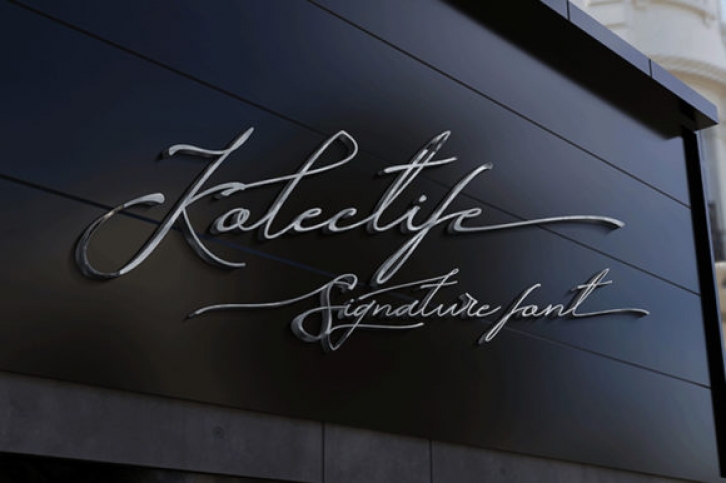
Kolectife Signature is a dazzling script font. This font is neatly crafted and highly detailed. Whatever the topic, this font will be a wonderful asset to your font library, as it has the potential to enhance any creation. This font is PUA encoded which means you can access all glyphs and swashes with ease!